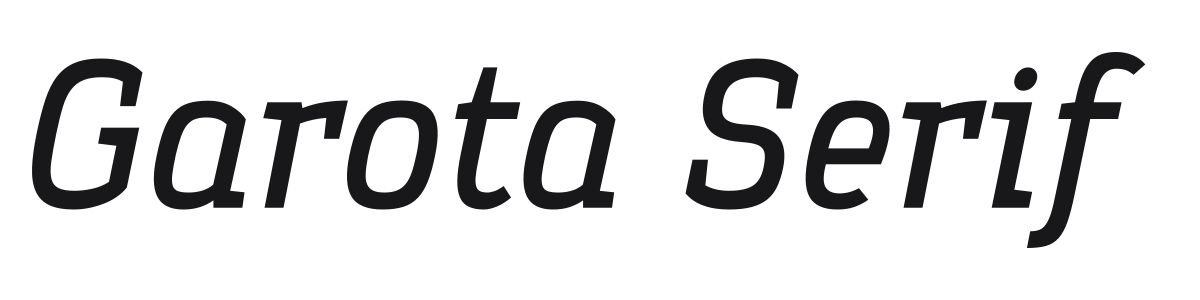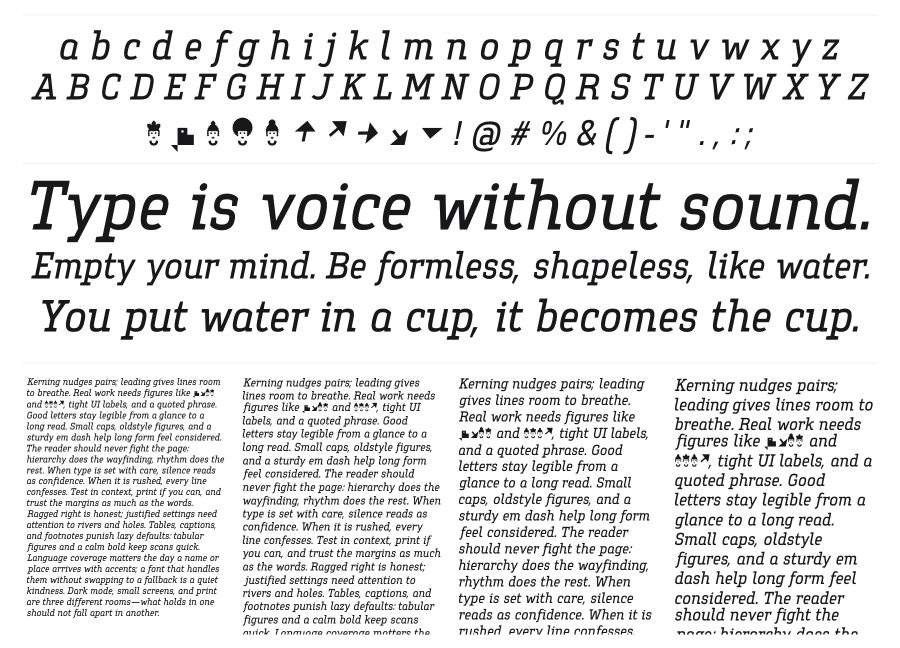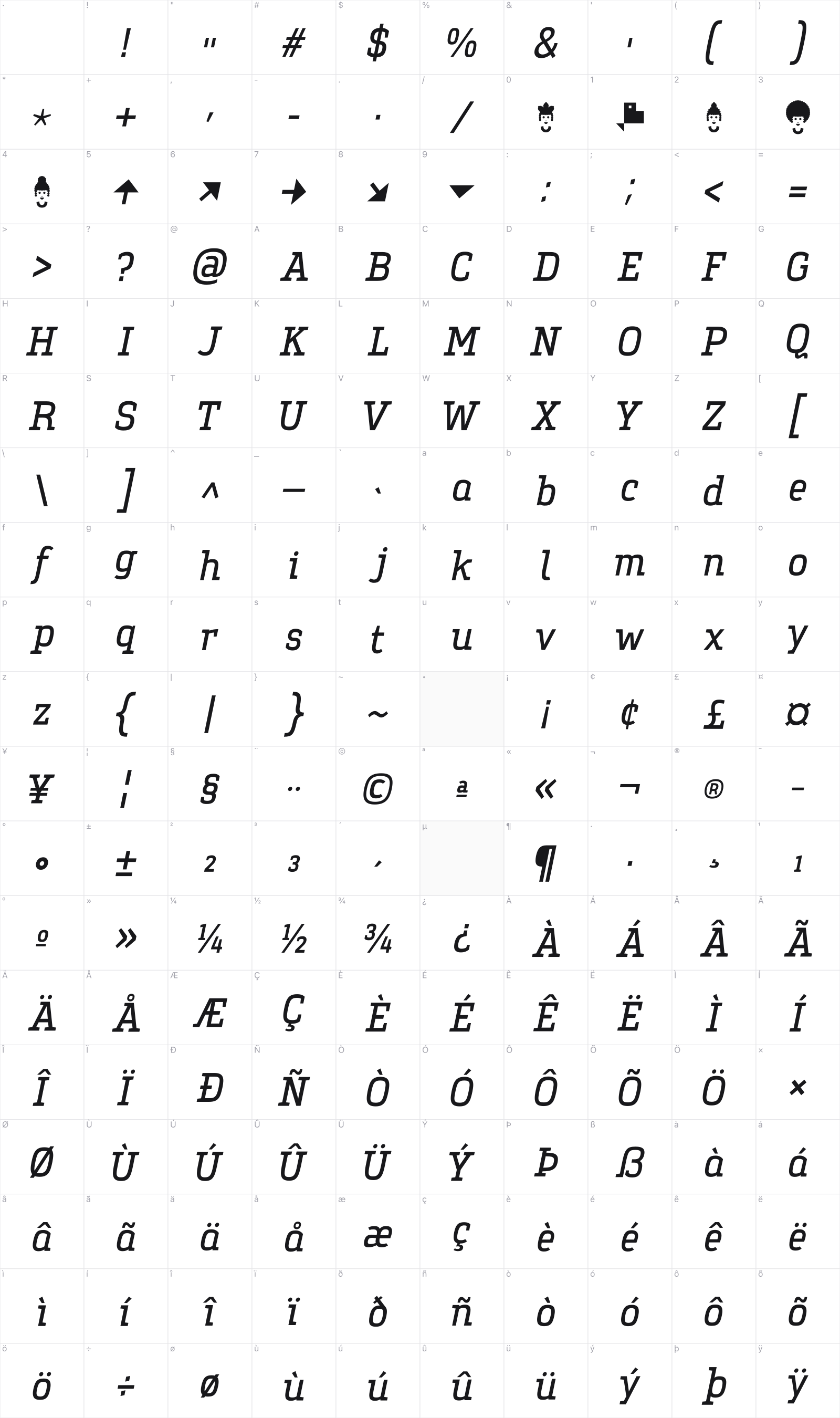
Garota Serif
Garota Serif is a contemporary slab serif built around organic curves and slightly narrow proportions that keep it feeling fresh rather than heavy. The low stroke contrast and softly rounded terminals give the design an approachable warmth without sacrificing sophistication. Available in four weights with Roman, Italic, and Small Caps styles, it covers a wide range of editorial and advertising needs.